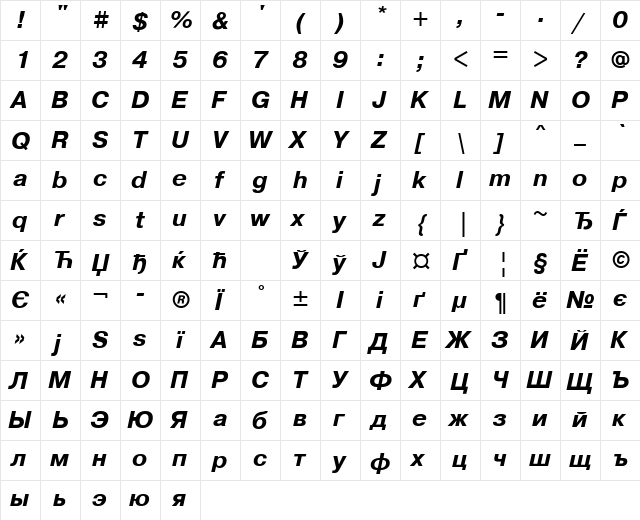
PragmaticaWINCTT BoldItalic
Design Context for PragmaticaWINCTT Typeface
PragmaticaWINCTT offers clean, dependable letterforms without strong stylistic allegiance, making it a practical choice for designers who need flexibility. The dynamic lean of this cut emphasises speed and emphasis in any layout. The heavy weight commands attention and anchors typographic hierarchies.
Pro Tip: Use PragmaticaWINCTT for emphasis, pull quotes, and subheadings where its slanted energy can add rhythm to the layout.